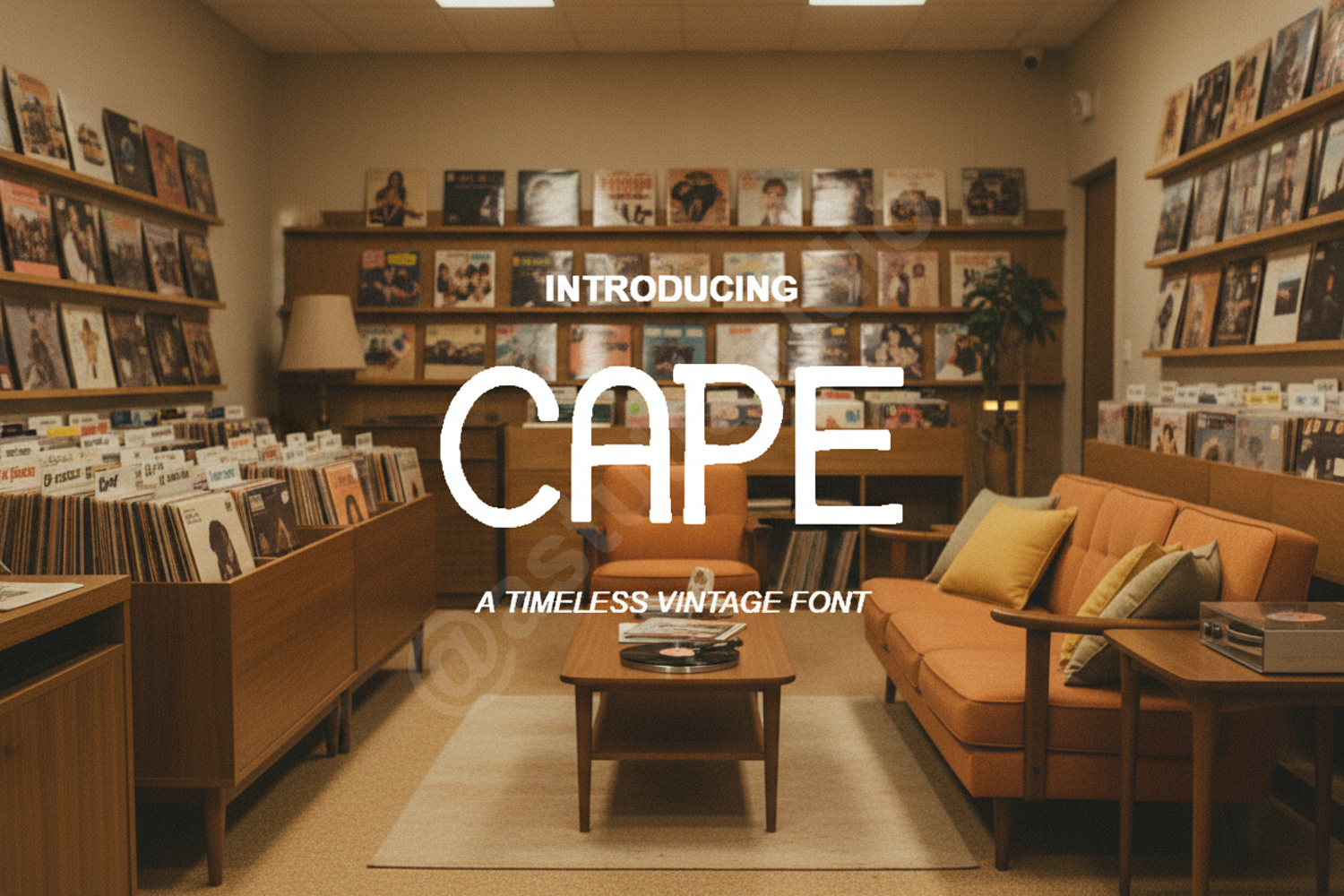
Cape - Modern Minimalist Sans Serif Font
Cape
Cape is a premium sans serif typeface meticulously crafted to embody modern elegance and functional simplicity. With its clean lines and balanced proportions, this font provides a sophisticated foundation for any creative project. Whether you are looking for a high-impact header or a legible body text, Cape offers the versatility needed to elevate your design work to a professional standard.
- Branding and Identity: Create a memorable and trustworthy brand presence.
- Editorial Design: Perfect for magazine layouts, book covers, and digital publishing.
- Minimalist Logos: Achieve a high-end look with clean, geometric letterforms.
- Web and UI/UX: Ensure readability across all digital platforms and devices.
- Marketing Materials: Enhance posters, brochures, and social media graphics with a contemporary touch.